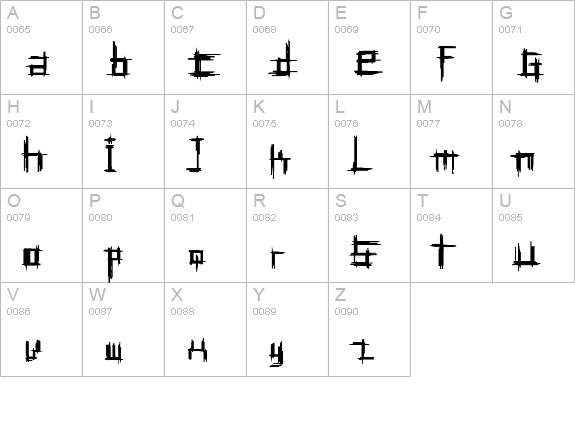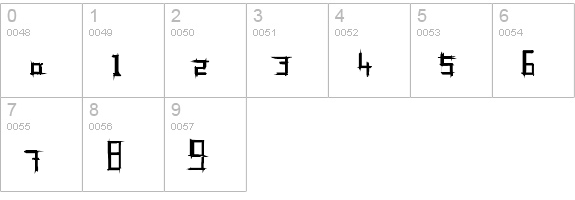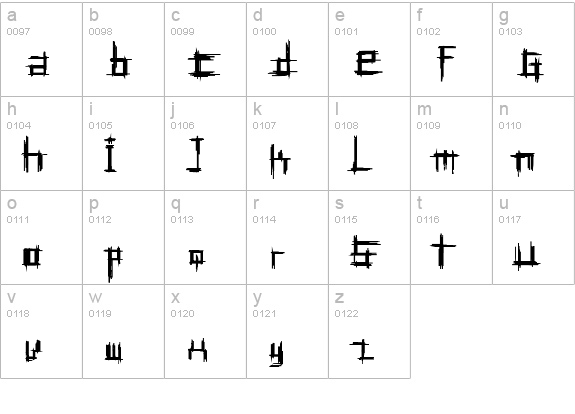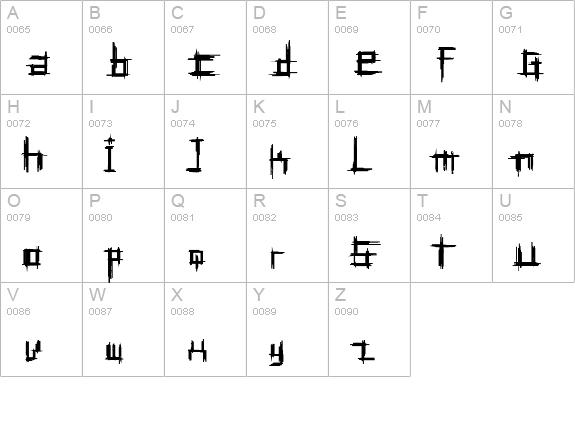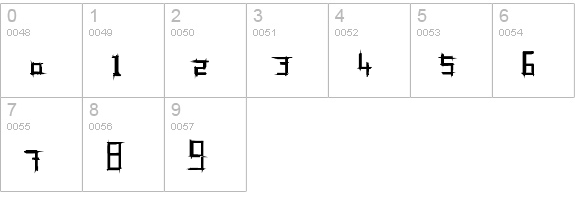
Bruised TwentyFive Font Details
Bruised TwentyFive is a unique and edgy font that exudes a sense of raw energy and creativity. Each letter appears to have been delicately bruised, giving it a distinctive and eye-catching appearance. The uneven lines and rough edges of this font add a touch of grunge and character to any design project. Not only does Bruised TwentyFive offer a bold and striking visual aesthetic, but it also conveys a sense of resilience and strength. The slightly distressed look of the letters gives them a sense of history and depth, making them perfect for projects that require a touch of authenticity and individuality. Best of all, Bruised TwentyFive is available for free download at FontsMarket.com. Whether you're working on a poster, logo, or website design, this font is sure to make a statement and set your work apart from the rest. Embrace the unique charm of Bruised TwentyFive and bring your designs to life with this one-of-a-kind font.